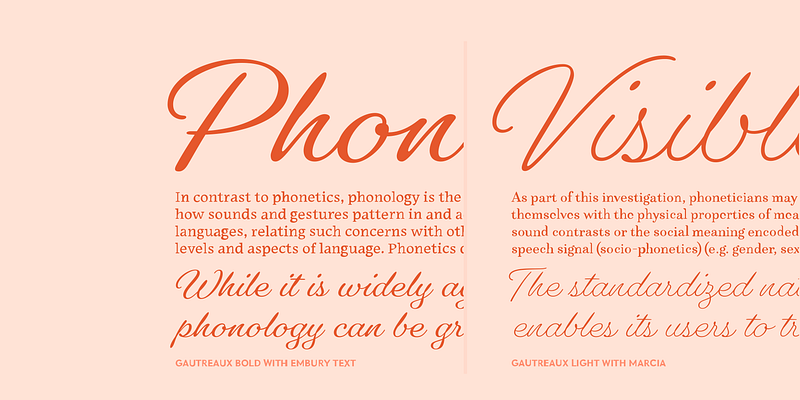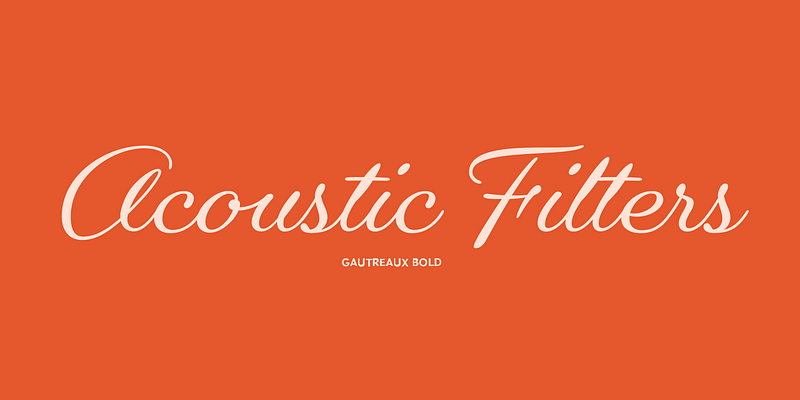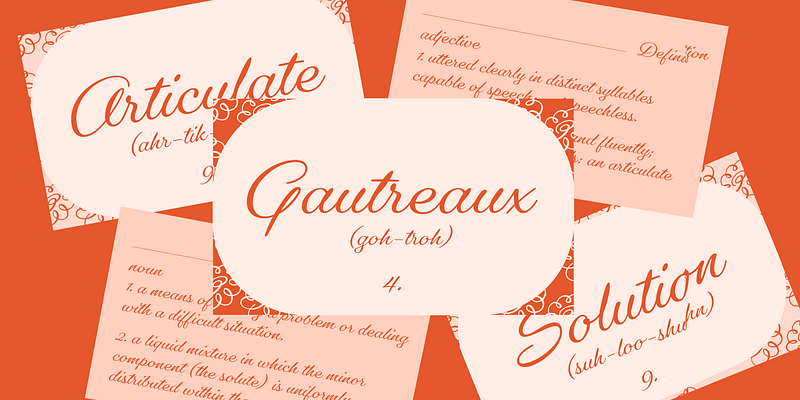
With her third release on Type Network, Victoria Rushton returns to her first typographic love: script lettering. As she worked on what would eventually become Gautreaux, she wondered whether the usual niceties that tend to accompany connected script faces in the age of OpenType—tons of ligatures, tons of alternates—were really necessary. She decided to tone down the design. By drawing and redrawing lettershapes and carefully considering connections in every single combination, Rushton came up with a connecting script that only needs four alternates. Victoria Rushton, 2017.
Victoria Rushton
Victoria was trained as a type designer at Font Bureau, where she spends her days lovingly kerning, plotting and snacking. She went to RISD and studied illustration because she loved to draw, but turns out the main thing she wanted to draw was letters, and that’s how she finds herself here, writing this little blurb, and she’s really glad you’re here too.